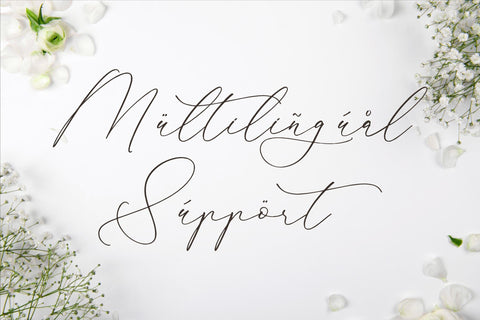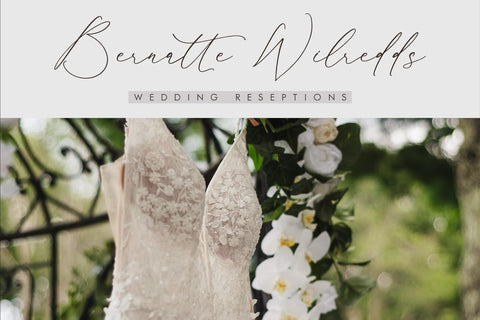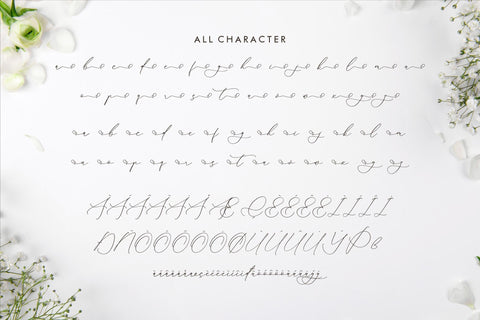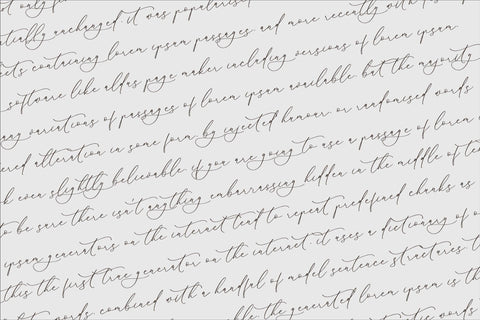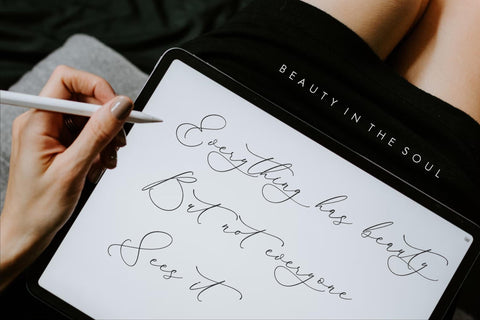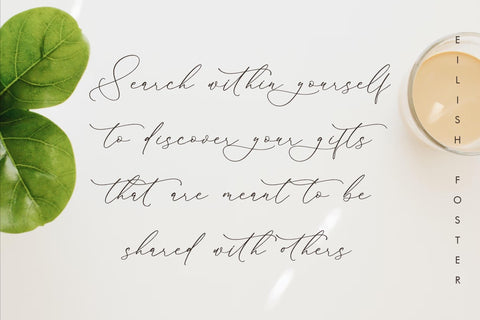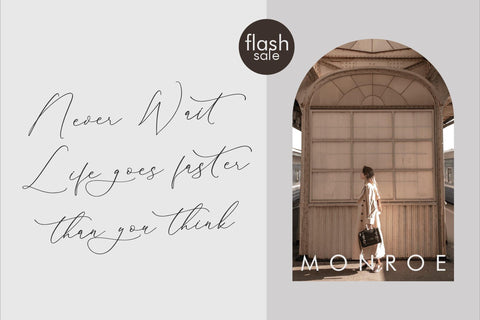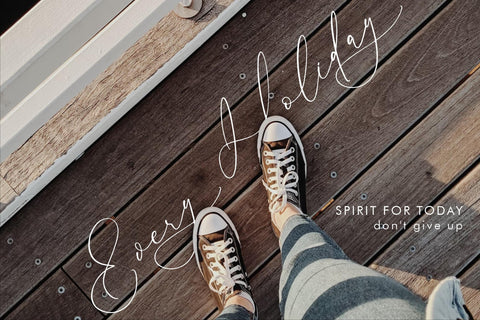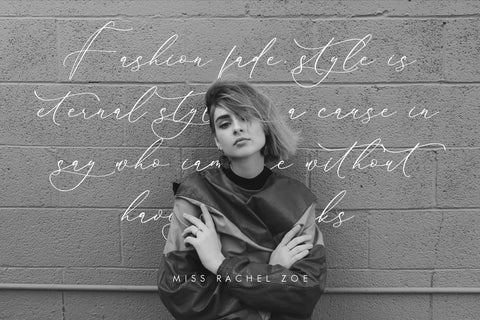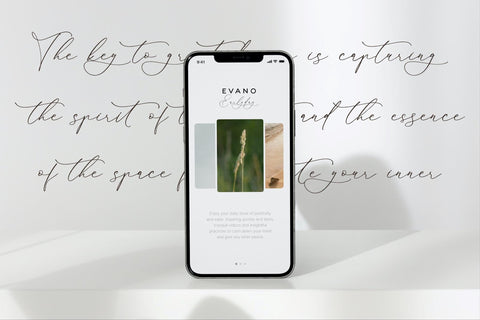
Glofester Menditas - Luxury Calligraphy Font
Proudly present Glofester Menditas - Luxury Calligraphy Font , created by Storytype,
A luxury script that has own unique style & modern look.